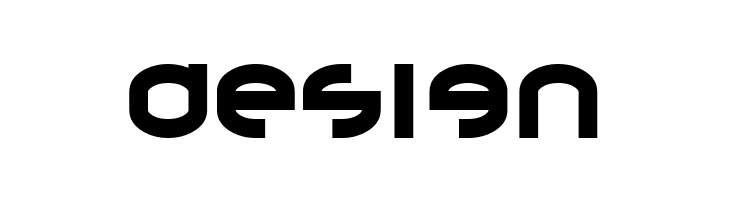
Digital iPhone Bold Italic Font
- Font: Digital iPhone Bold Italic
- Weight: Bold Italic
A futuristic, geometric font with bold, rounded letterforms and uniform stroke width.